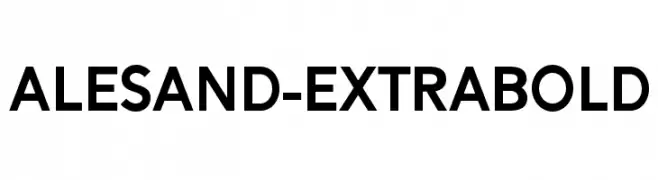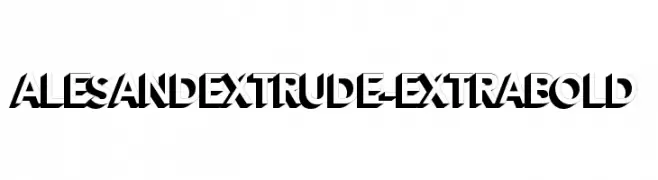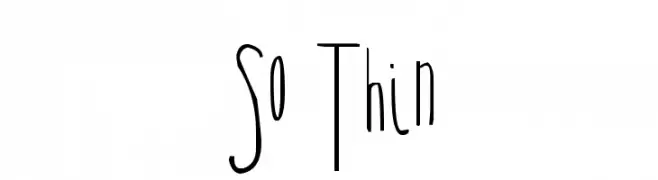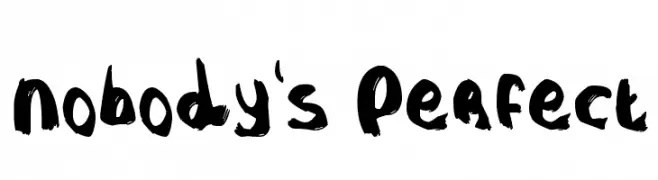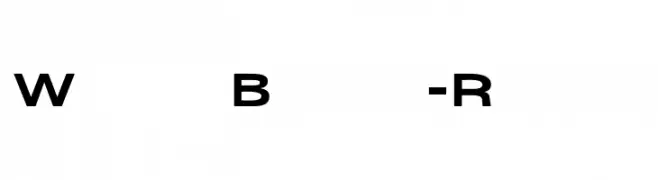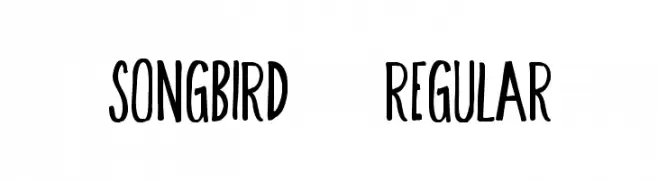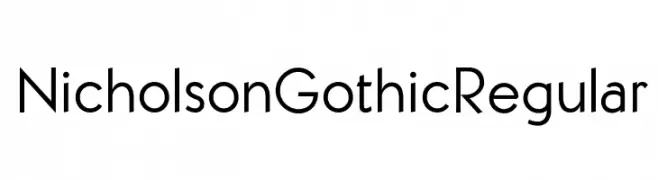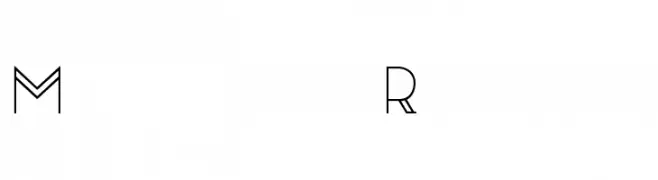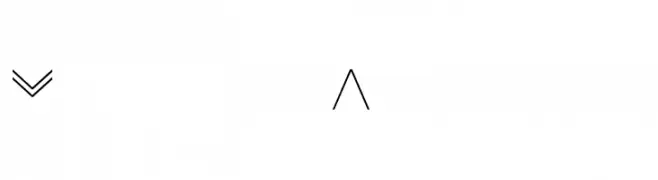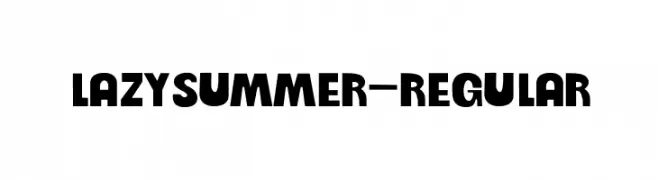
A bold, modern sans-serif font with clean lines and excellent readability.
A bold, extruded font with a three-dimensional effect and strong geometric structure.
A clean, modern sans-serif font with uniform stroke width and excellent legibility.
A bold, geometric outline font with a modern and clean aesthetic.
A bold, 3D extruded sans-serif font with a striking geometric style.
A sleek, ultra-thin, and elongated font with consistent stroke width.
A bold, hand-painted style font with dynamic, expressive characters.
A bold, modern font with geometric lines and a cohesive design.
A playful, hand-drawn style font with tall, narrow letterforms.
A modern, geometric sans-serif font with clean lines and balanced spacing.
A modern, geometric font with sharp angles and clean lines.
A bold, geometric font with high contrast and distinctive shapes.
A futuristic, geometric font with sharp angles and clean lines.
A bold, brush-style font with dynamic, textured strokes.
A bold, playful font with rounded characters and a relaxed aesthetic.
A whimsical, hand-drawn font with tall, narrow letters and a playful style.
A modern, geometric font with bold uppercase letters and numerals.
A tall, narrow handwritten font with a casual, informal style.
A handwritten font with a casual, organic style and tall, narrow uppercase letters.
A bold, hand-drawn font with dynamic, angular strokes.
A pixelated, blocky font with a retro digital aesthetic.
A bold, graffiti-inspired font with sharp, angular lines and a hand-drawn look.
A bold, pixelated font with a retro digital aesthetic.
A playful, informal handwritten font with a casual and approachable style.
An elegant monoline script font with fluid, connected characters.
A flowing, elegant script font with a handwritten charm.
A bold, brush-style font with a dynamic, handcrafted appearance.
A bold, hand-drawn font with a playful and expressive style.
A bold, expressive script font with dynamic, hand-drawn strokes.
A flowing, cursive script font with elegant, connected letters.
An elegant script font with flowing, interconnected letters and delicate swashes.
An elegant script font with flowing, cursive letters and graceful curves.
A bold, brush-style font with dynamic, hand-painted strokes.